In graphic design, font choice plays a crucial role in shaping visual identity. Textured, vintage, and rough fonts stand out for their unique appeal, adding a distinct aesthetic while conveying different moods and emotions. Here’s a look at these font types and how to use them effectively.
Textured Fonts
Textured fonts feature surface effects that mimic real textures like scratches, fibers, or grains, adding depth and dynamism to designs. Examples from Salamahtype include “Tactico“ and “Wolfers“. These fonts are ideal for designs requiring an artistic and creative touch.
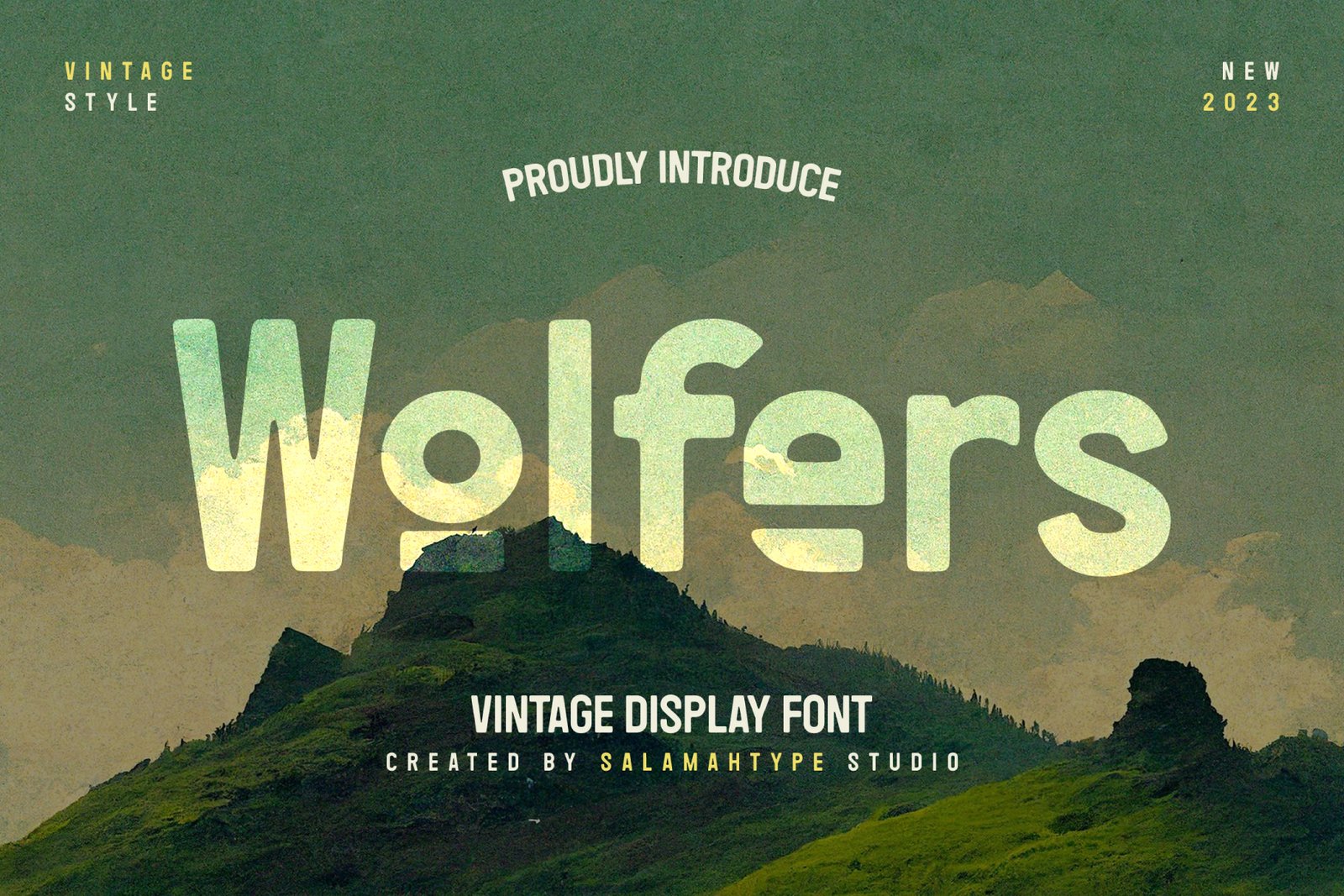
Vintage Fonts
Vintage fonts revive typographic styles from bygone eras, evoking nostalgia and classic charm. These fonts are perfect for branding that highlights tradition and authenticity. “Major Birch“ and “Rebaston“ from Salamahtype exemplify elegant vintage fonts, suitable for logos of cafes, boutiques, or products emphasizing heritage and quality.
Rough Fonts
Rough fonts display a rugged, uneven appearance, as if hand-crafted or imperfectly processed. These fonts convey authenticity, boldness, and strong personality. “Black Phantom“ and “Cheeky Moghster“ from Salamahtype show how rough textures enhance visibility and visual appeal, making them effective for logos of music bands, outdoor products, or extreme events.
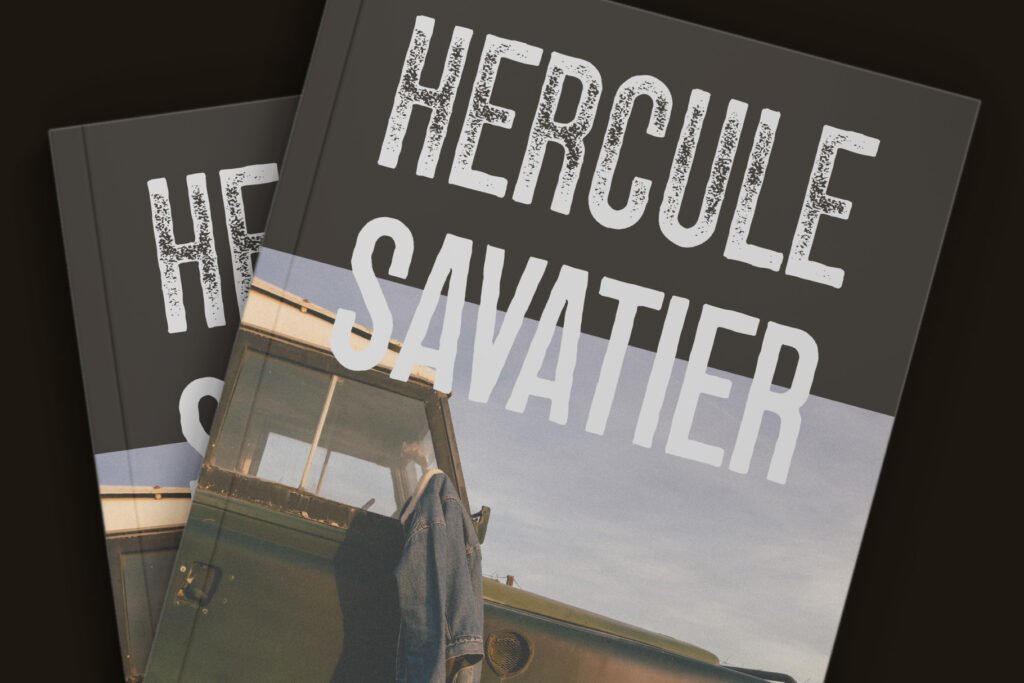
Why Choose Textured, Vintage, and Rough Fonts?
- Unique Visual Appeal: These fonts offer a distinctive look, helping your design stand out.
- Emotion and Mood: Each font type brings specific moods and emotions, reinforcing your brand message.
- Versatility: They can be used in various design contexts, from logos to posters, invitations, and social media.
Tips for Using Fonts in Design
- Theme Appropriateness: Ensure the font matches the theme and message of your design. Vintage fonts suit retro themes, while rough fonts fit edgy, dynamic themes.
- Readability: Maintain readability, especially at smaller sizes.
- Font Combination: Combine textured, vintage, or rough fonts with simpler fonts to create interesting contrasts and visual harmony.